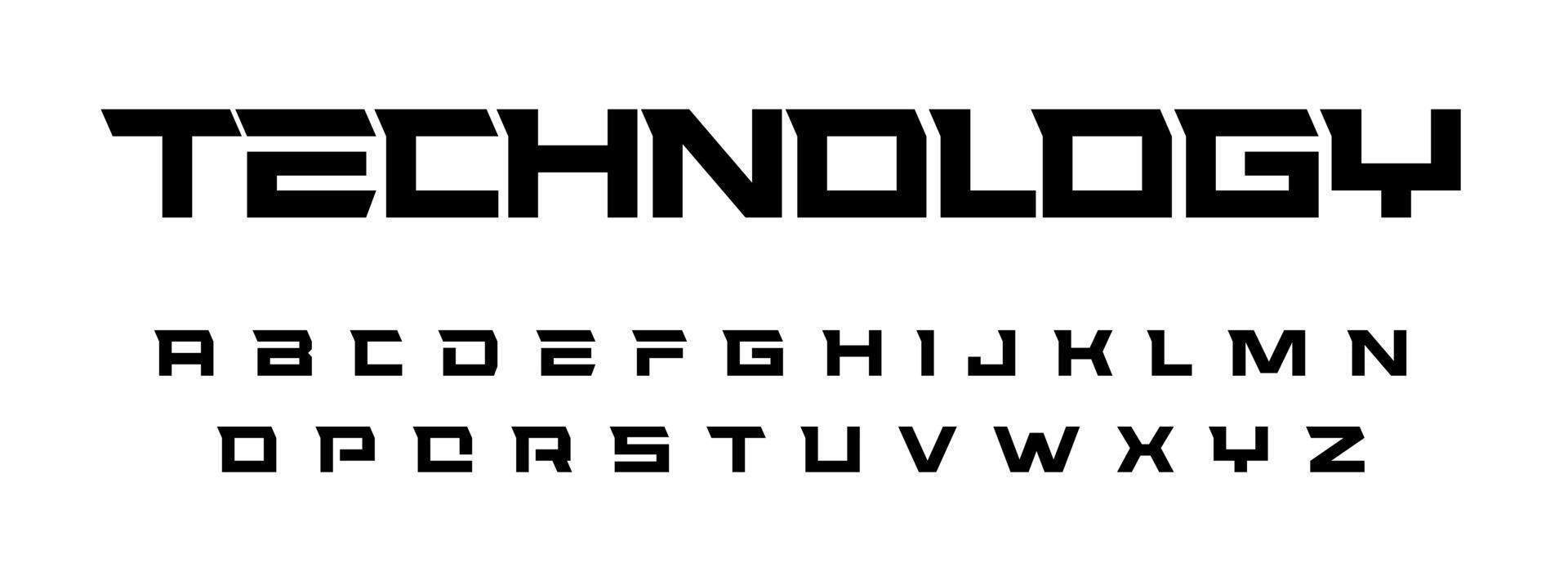
Geometric simple font, thick straight square letters, trendy font with spurs. Vector font set for technology, sport, architecture themes. Vector typography Pro Vector